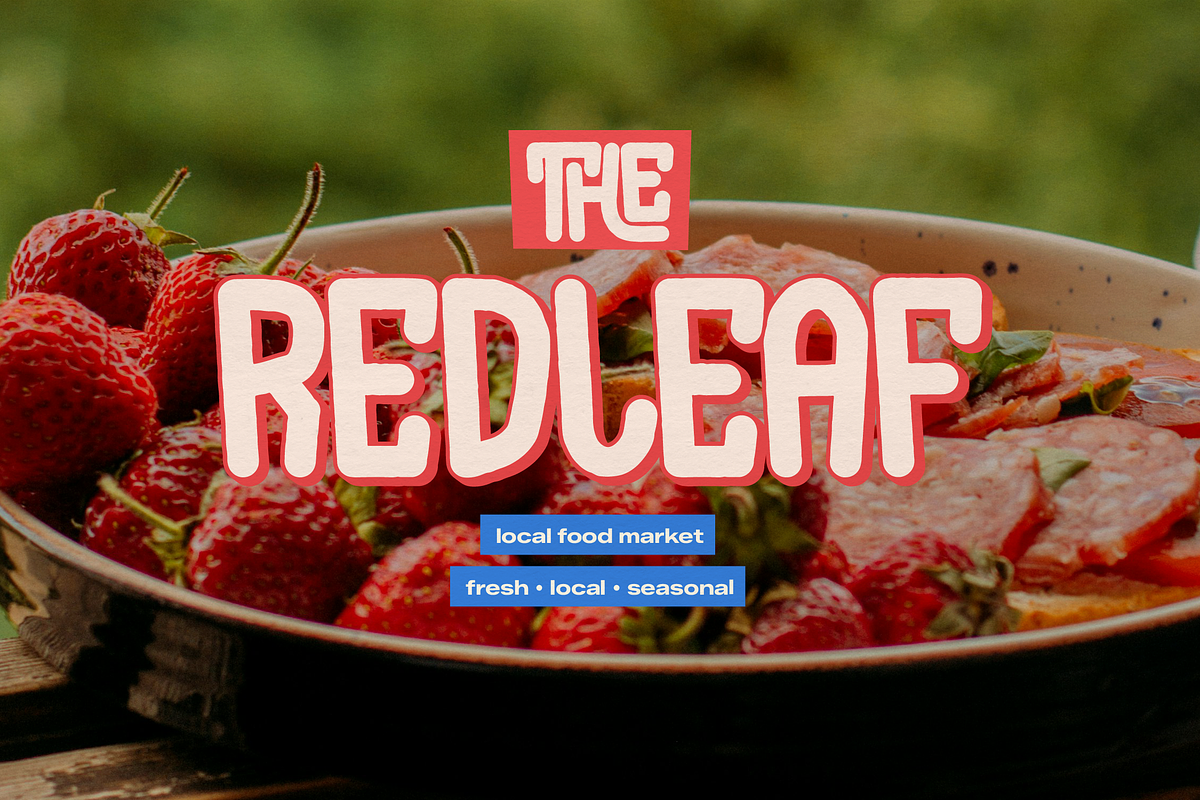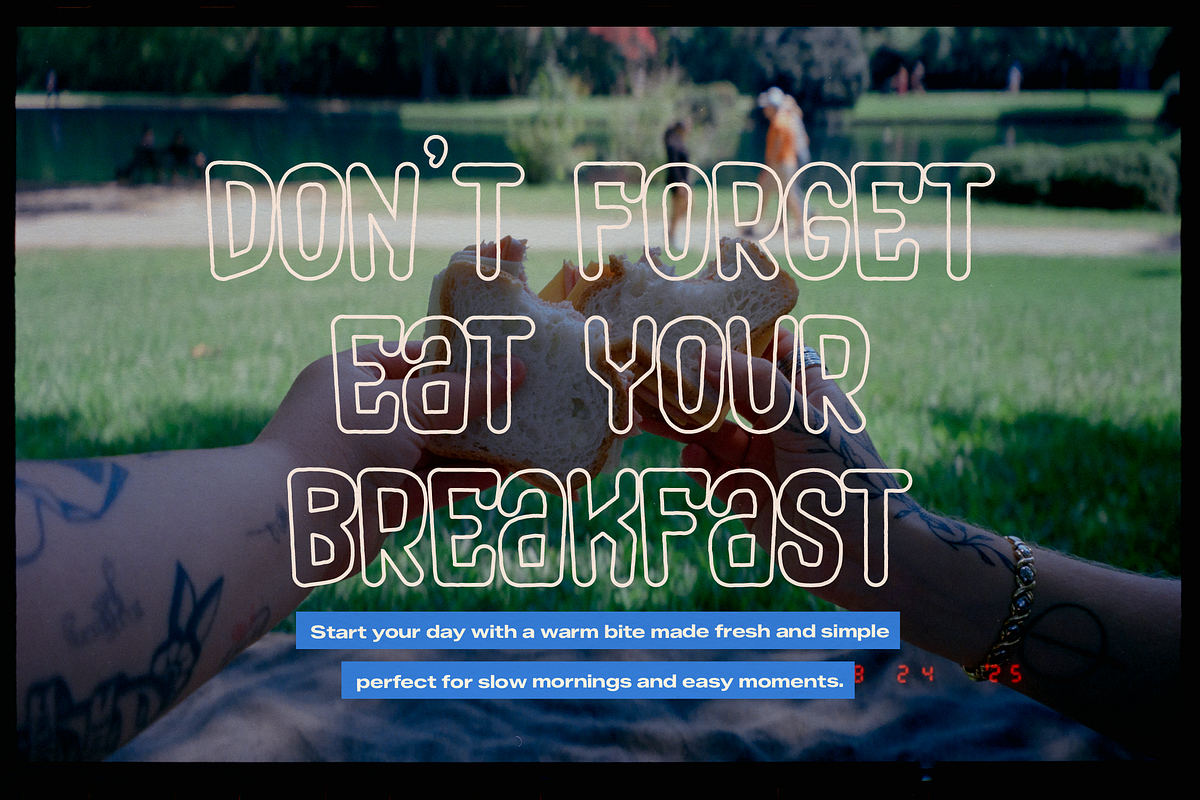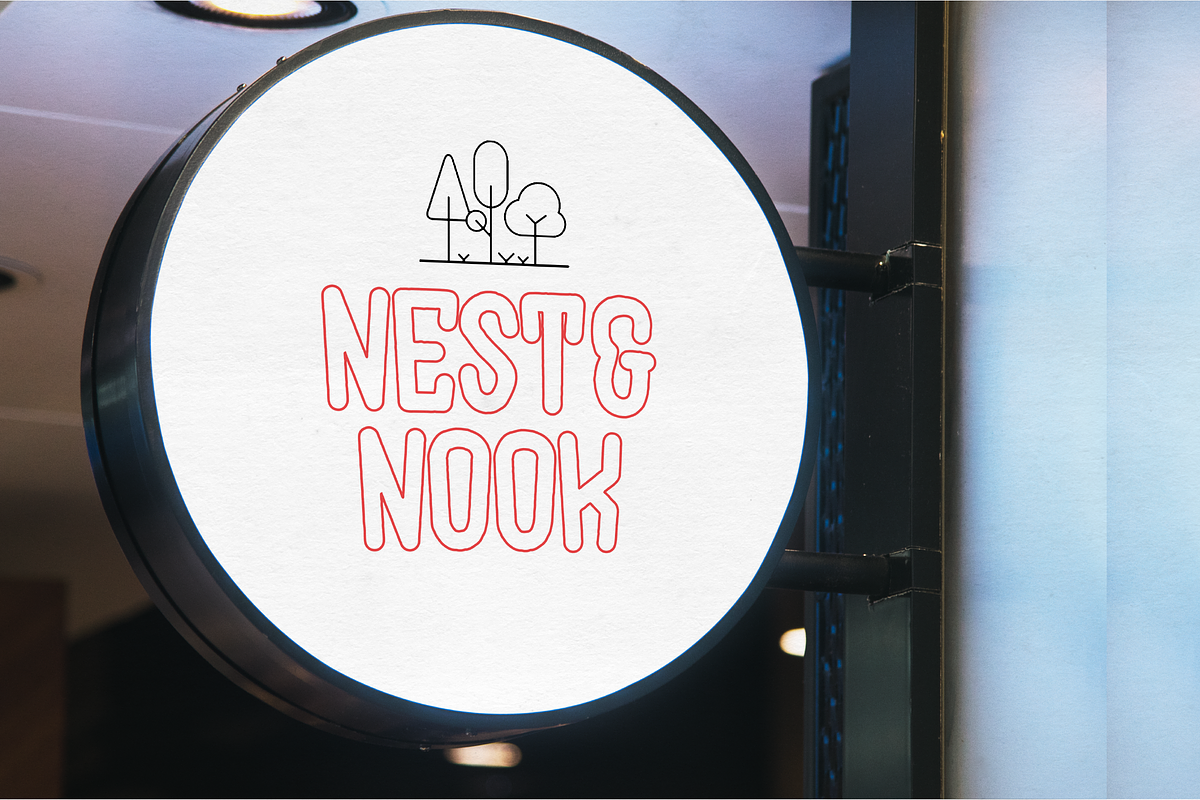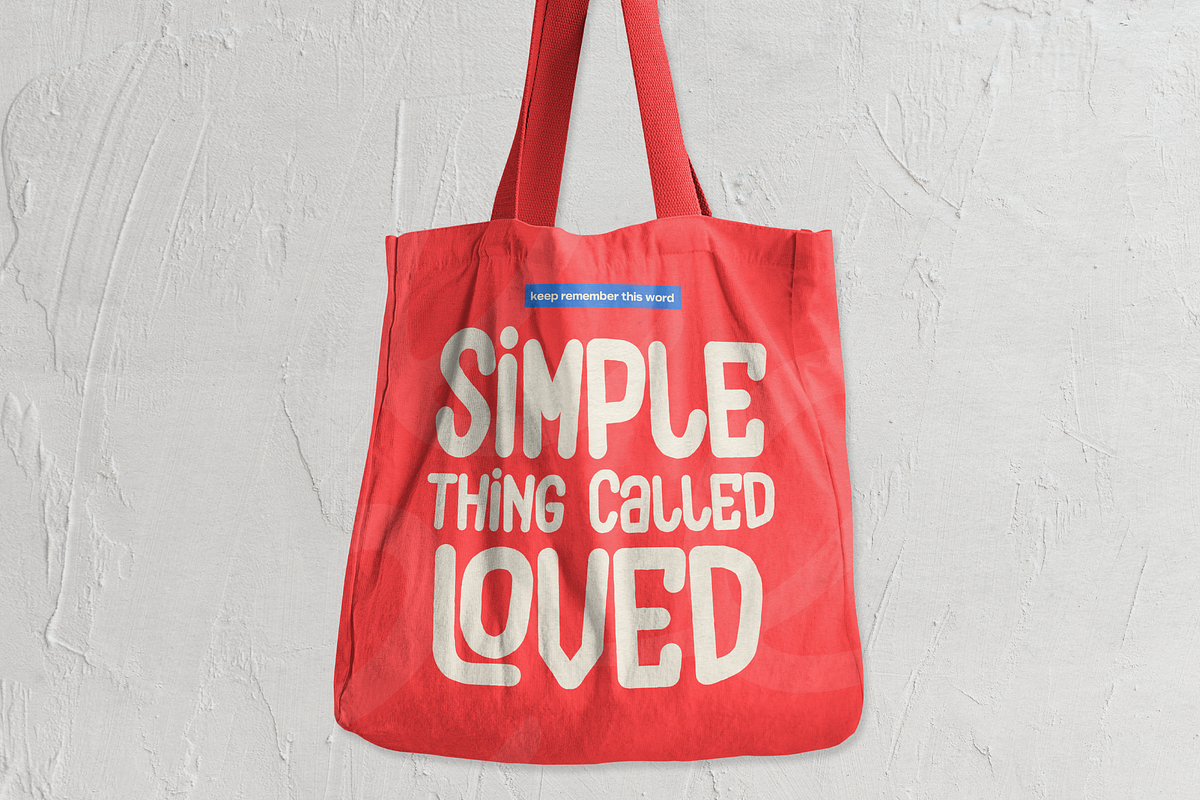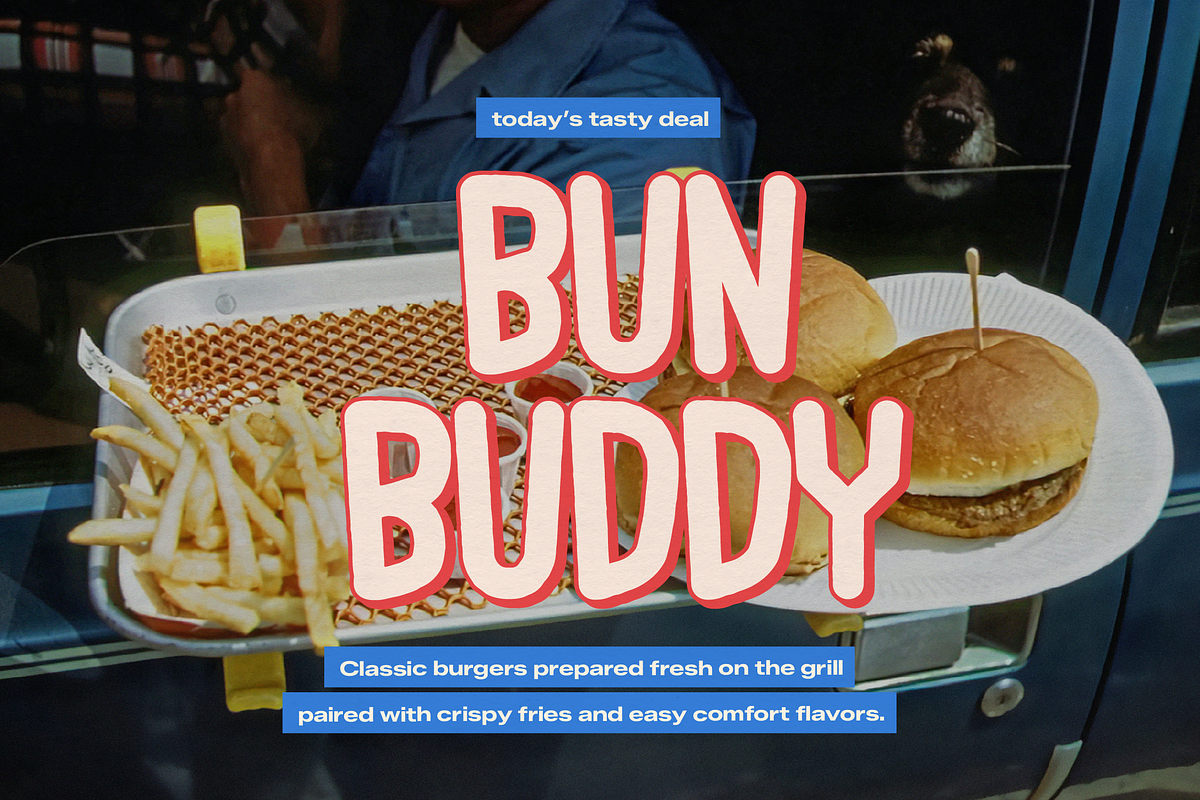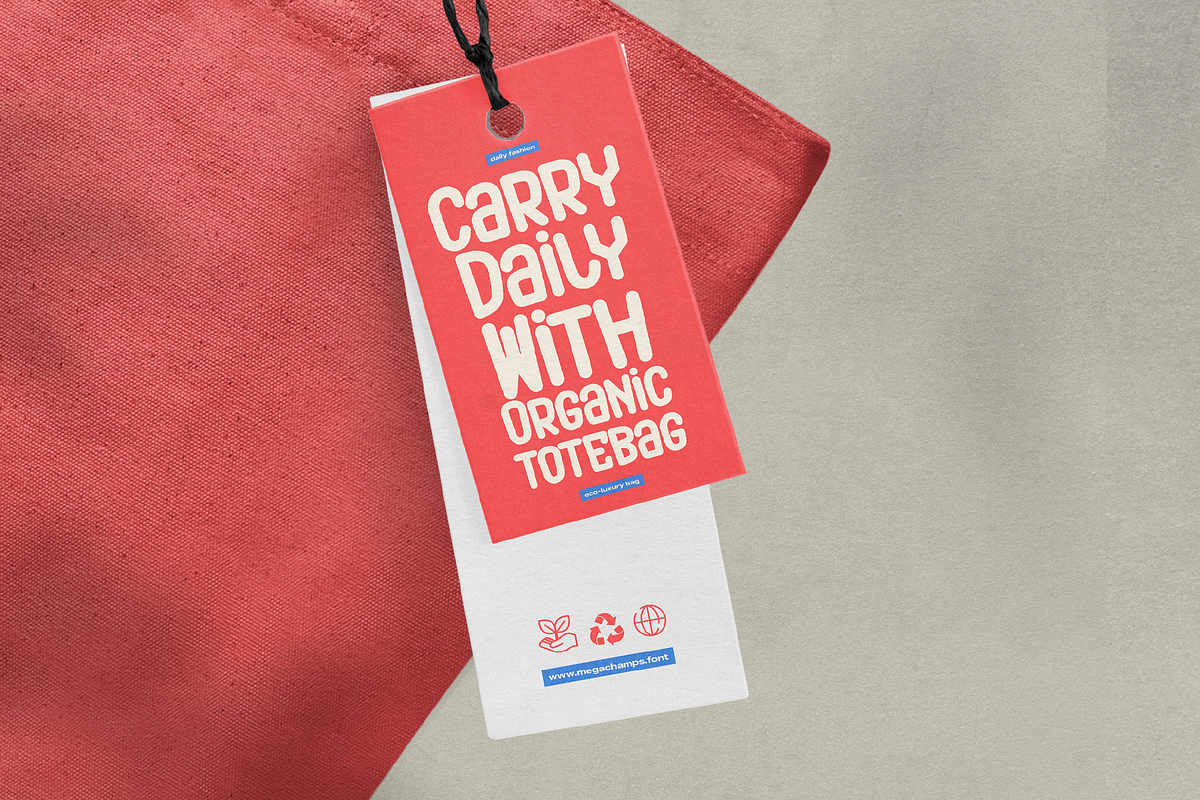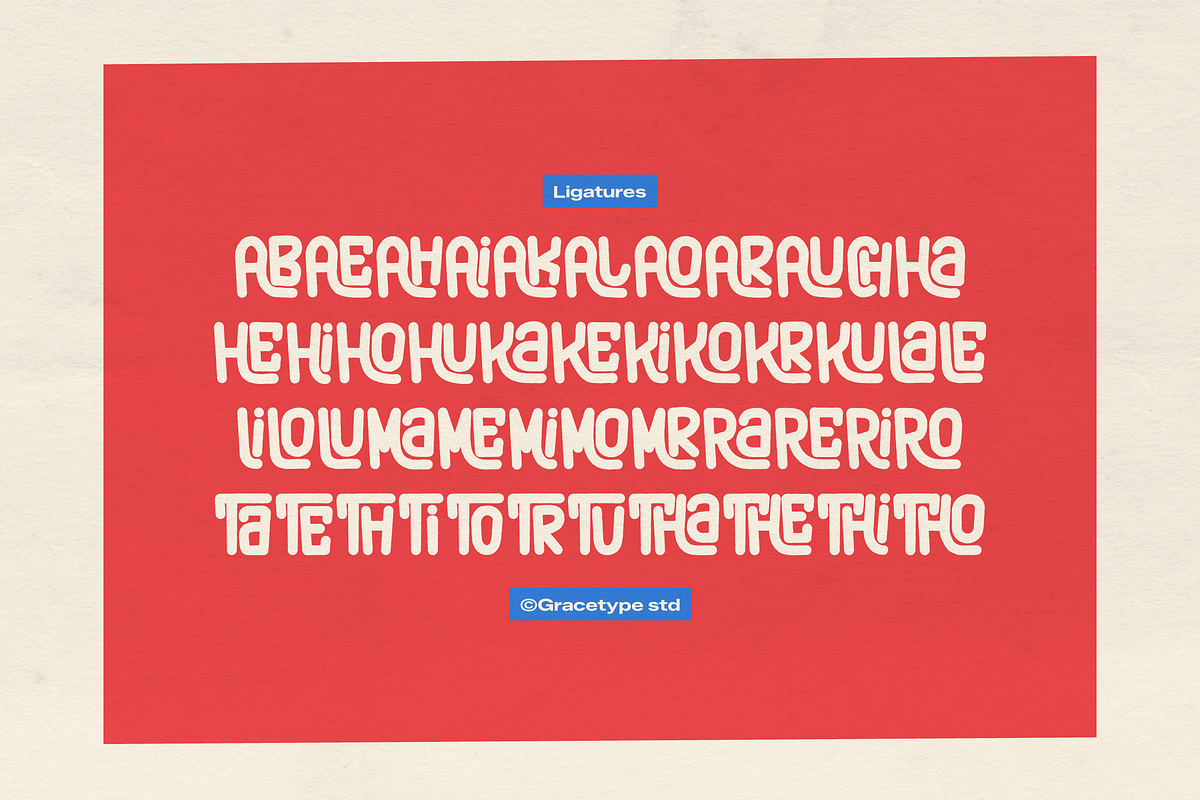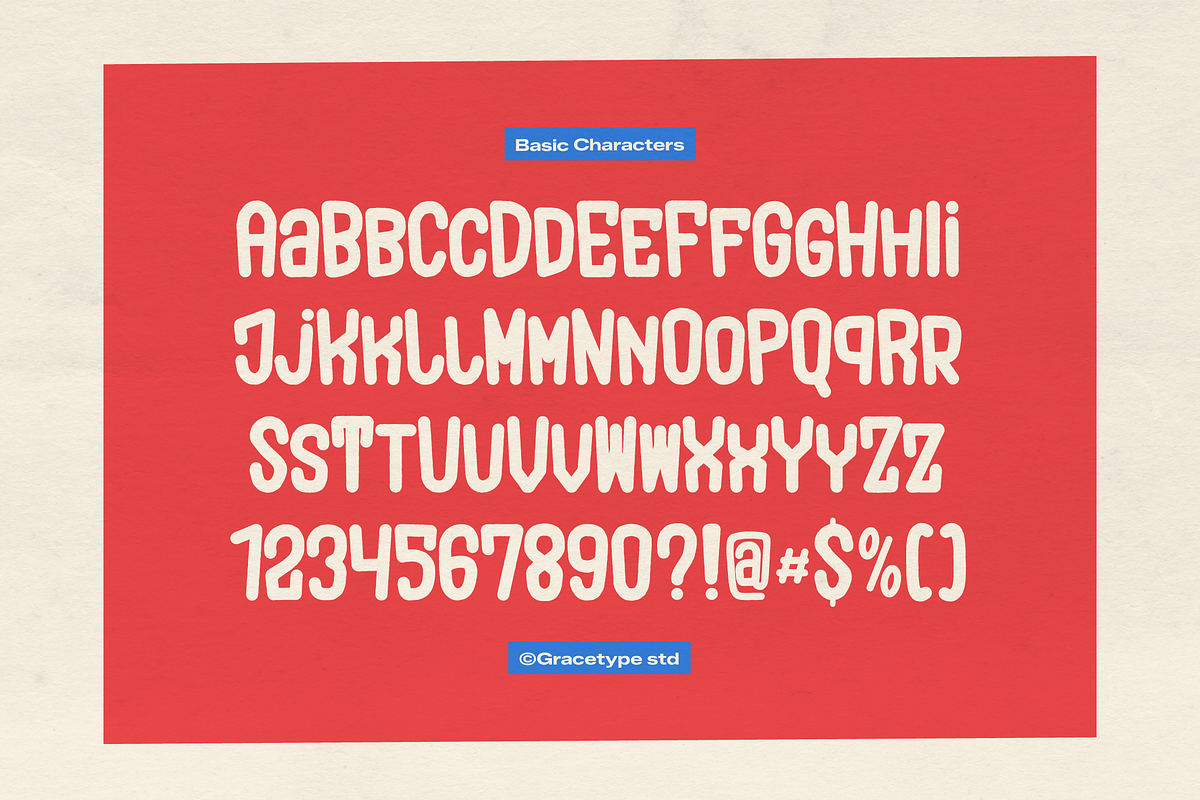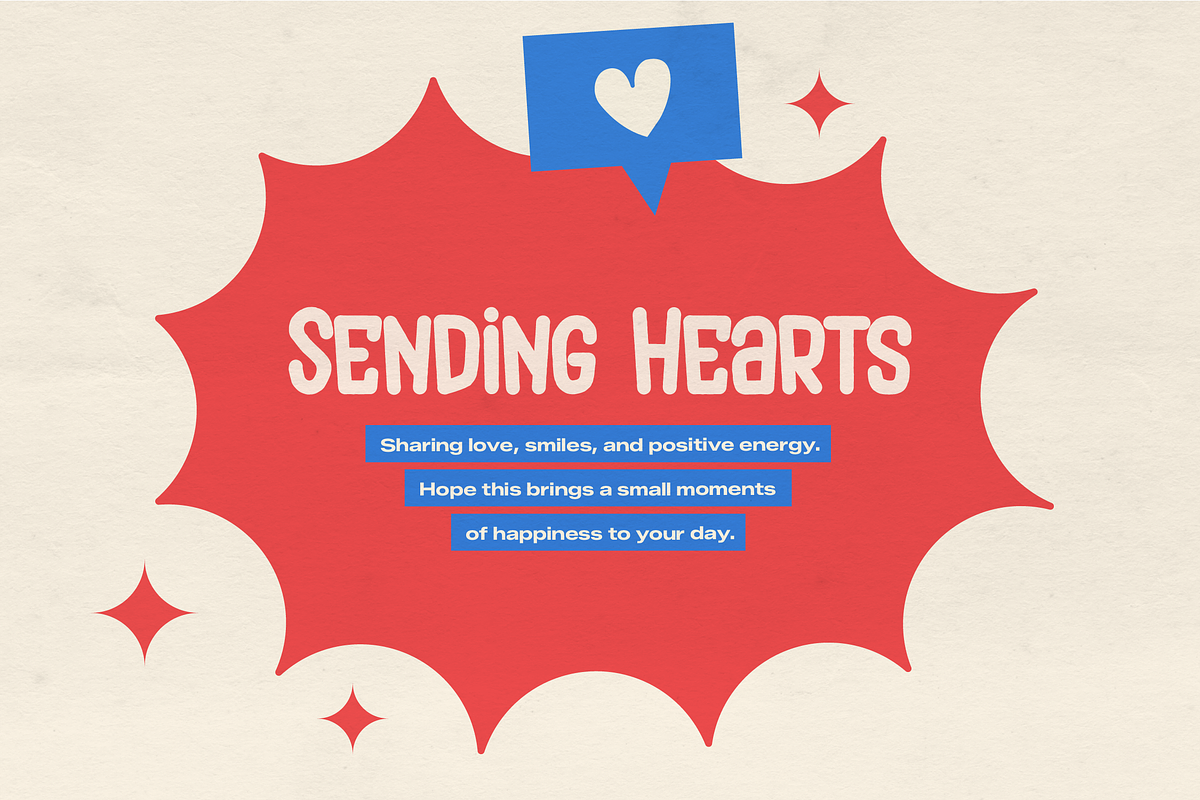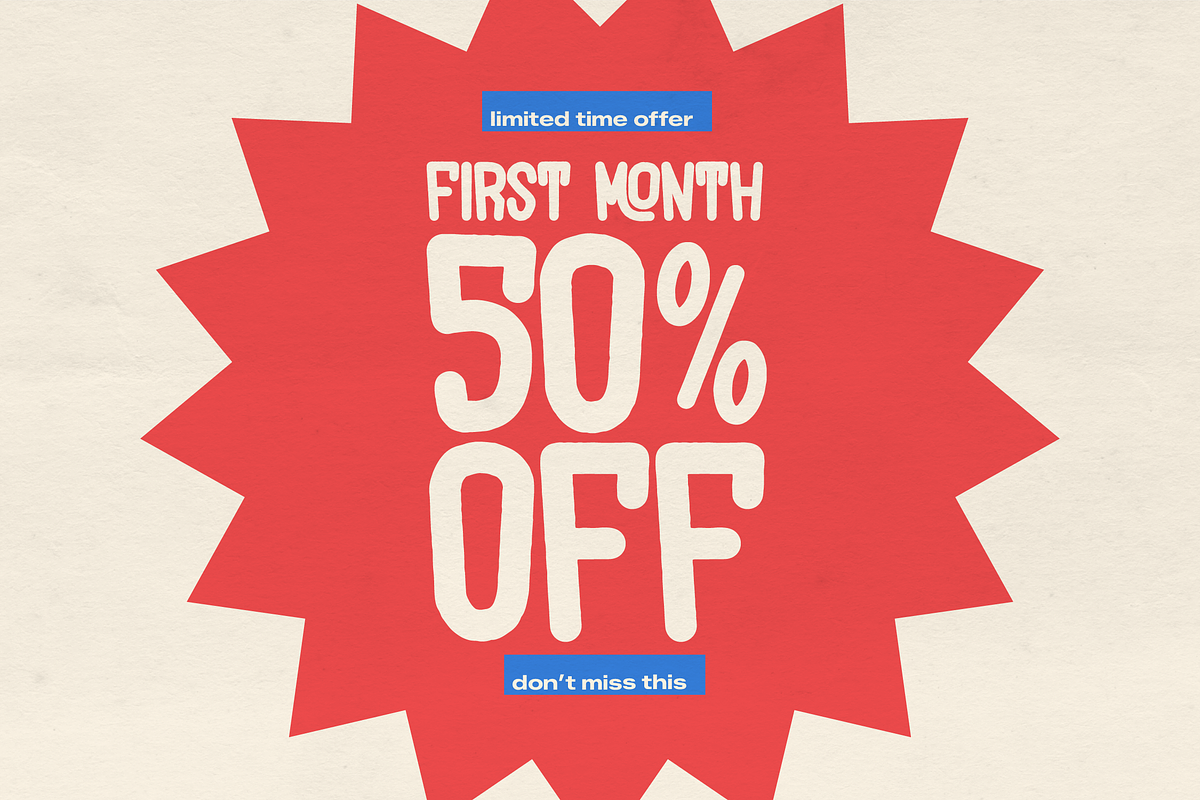
Mega Champs | Playful Display
Mega Champs | Playful Display, from Gracetypestudio, suitable for any projects such as: logos, branding projects, homeware designs, product packaging, mugs, quotes, posters, shopping bags, t-shirts, book covers, name card, invitation cards, greeting cards, label, photography, watermark, special events, and all your other lovely projects that need a Hand Drawn taste.